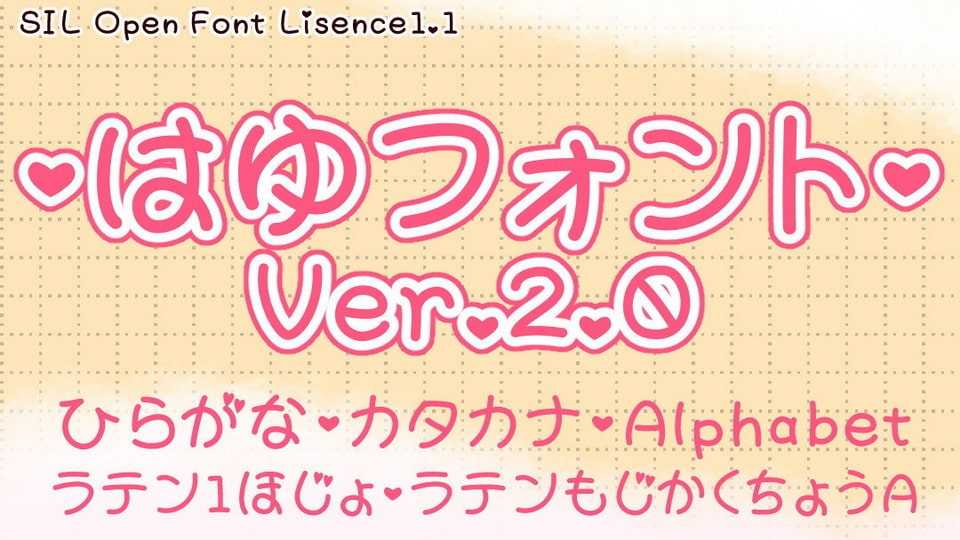
Download Hayu font, a handwritten typeface inspired by the round handwriting of a girl who loves decorating everything with hearts. Hayu font is adorned with heart-shaped accents, adding a sweet and endearing touch to each character.
Designer: Daedalus Ena